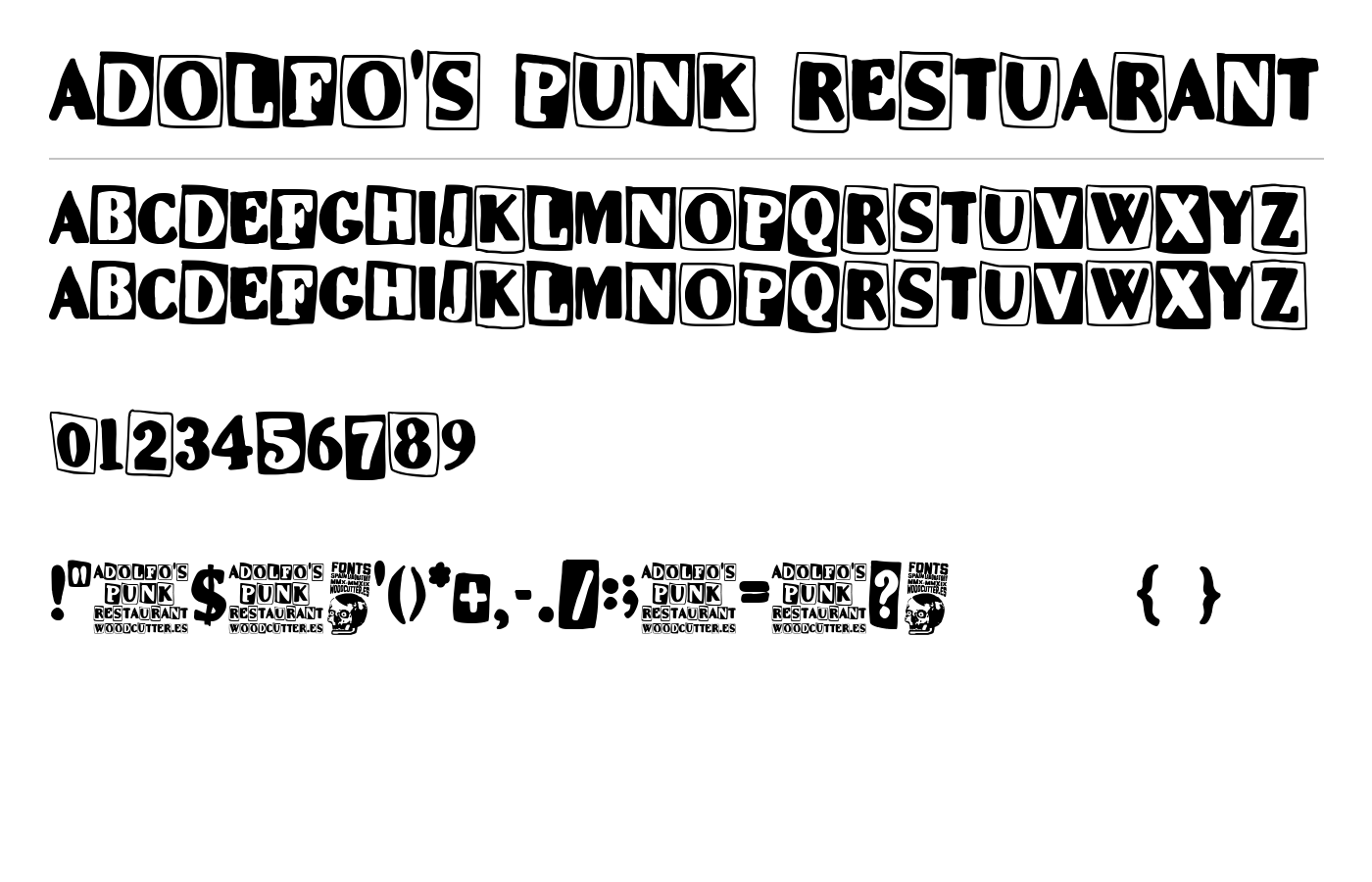
Adolfo's Punk Restaurant is a bold, playful display font that mimics a ransom-note style with its irregular, chunky letters framed by quirky, uneven boxes. Its strong, heavy weight and whimsical shapes convey a rebellious, casual vibe, making it perfect for edgy branding, fun posters, or creative headlines that grab attention with an unconventional, hand-crafted feel. This font shines in designs where personality and a youthful, energetic spirit are key.
Adolfo's Punk Restuarant Font
About Adolfo's Punk Restuarant Font